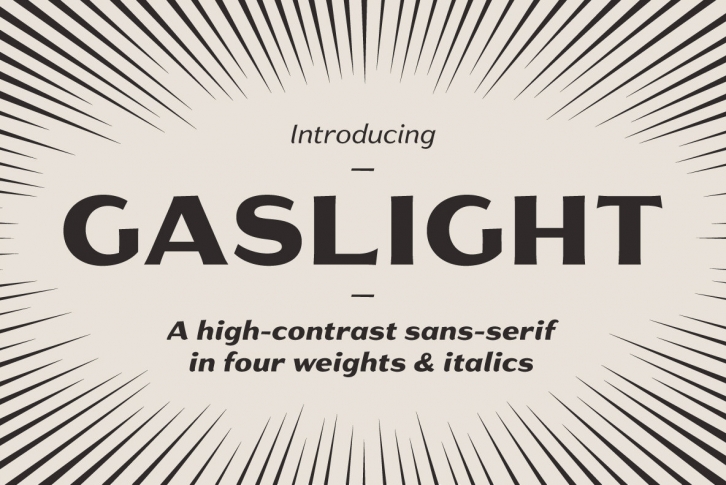
Gaslight is the result of a desire to create a sans-serif rich with humanistic charm and lyrical curves, to provide some relief from the highly rational, low-contrast faces we’re surrounded by at every turn. Gaslight can lend an old-fashioned elegance to product packaging, restaurant signage, or the hull of your grand seafaring vessel.